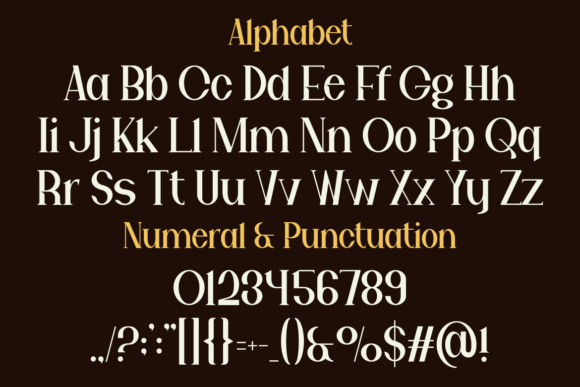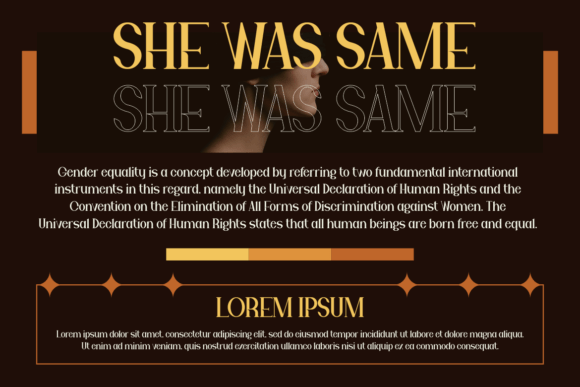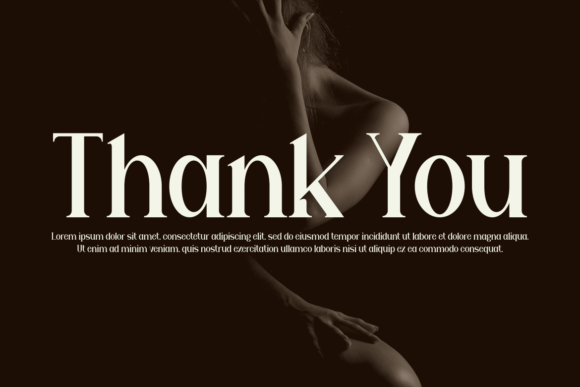
Introduction to Hilga Font
Hilga Font is a modern display serif font.
The font is suitable for any branding project like logo, t-shirt printing, product, and many more Outstanding in a wide range of contexts.
Key Features of Hilga Font
Why Choose Hilga Font?